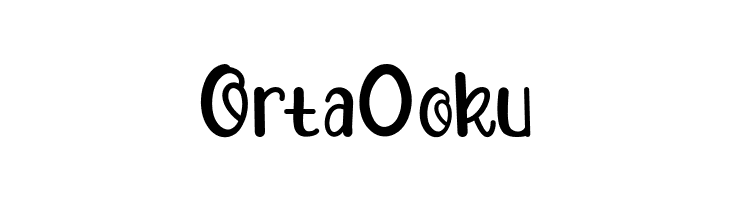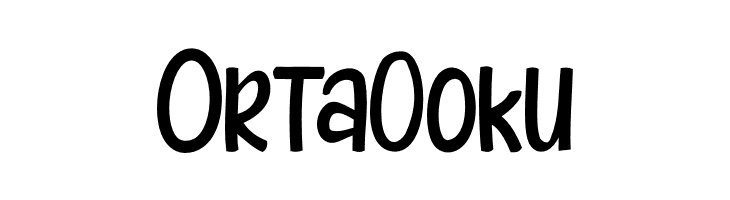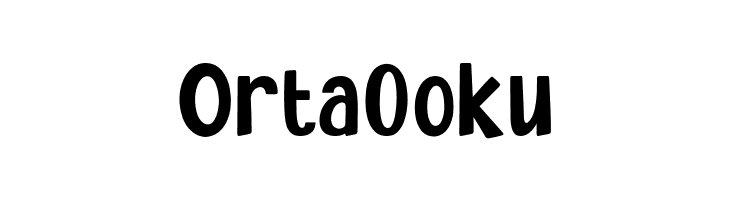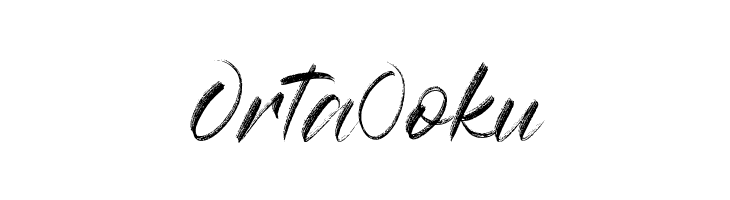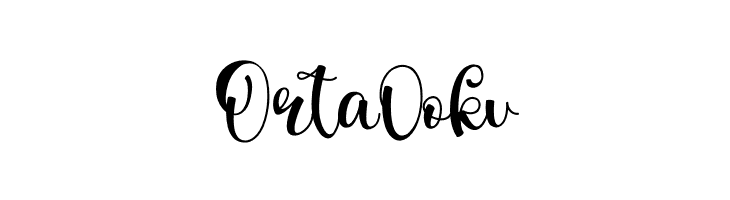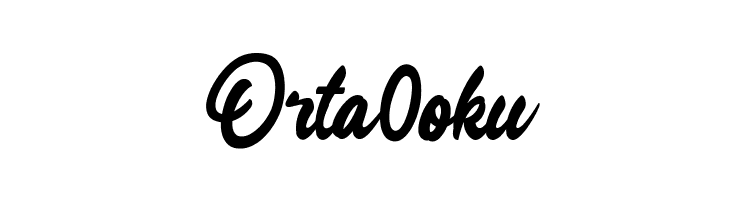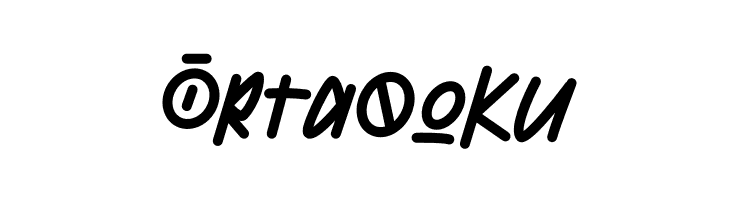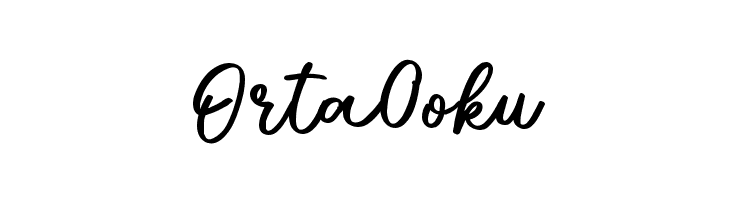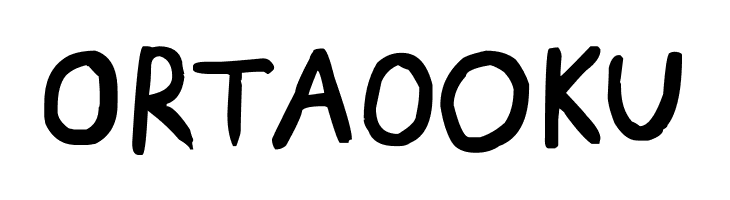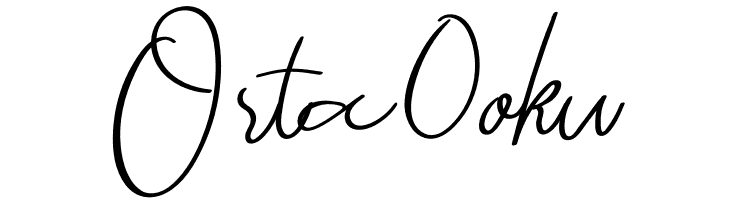
( Fonts by Bluestype Studio )
A graceful script font with fluid, connected strokes, ideal for personal and elegant designs.
A flowing script font with elegant, connected strokes and a handwritten feel.
A whimsical, cursive script font with decorative swirls and loops.
( Fonts by Pandan Wangi )
A bold, playful handwritten font with a casual and friendly style.
( Sabrtype - creativemarket.com/Sabrtype )
A lively and elegant handwritten script with fluid, cursive strokes.
A dynamic, brush-style font with expressive, hand-drawn strokes.
( Fonts by Type Factory )
A bold, dynamic script font with a casual, handwritten style.
( Fonts by Alfin Ridhowi )
A playful handwritten font with a casual and friendly style.
( Fonts by Graphicxell )
A playful and bold font with rounded strokes and a lively appearance.